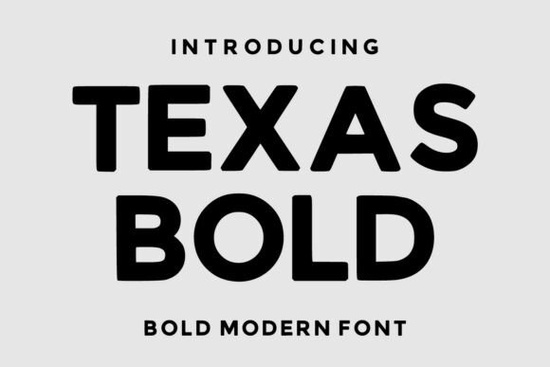
Designers, crafters, and small business owners often look for fonts that can bring their creative visions to life without compromising on style or functionality. Texas Bold Font is one such typeface that stands out for its strong, modern aesthetic and versatility across a range of design projects. Whether you're working on logos, branding, or social media graphics, this font offers the confidence and clarity needed to make your work stand out.
Designed with clean geometric shapes and bold letterforms, Texas Bold Font delivers excellent readability while maintaining a sleek and professional appearance. Its minimalist yet powerful style makes it suitable for both corporate and creative projects that require a modern and sophisticated look. The font’s strong presence ensures that it commands attention without being overwhelming, making it ideal for headlines, banners, and other visual elements where impact matters most.
If you're looking for a font that can adapt to different design needs, Texas Bold Font is a reliable choice. It works well in a variety of formats, from print materials like posters and packaging to digital platforms such as website headers and social media posts. Its versatility means it can be used in everything from advertising campaigns to apparel design, offering a consistent and polished look across all applications.
Why Texas Bold Font Works for Different Projects
One of the key strengths of Texas Bold Font is its ability to fit into a wide range of design contexts. For example, when creating a logo, the font’s bold and confident style helps establish a strong brand identity. In corporate settings, it provides a clean and professional feel that aligns with modern design trends. For more creative projects, the font’s geometric structure adds a contemporary edge that can elevate any visual composition.
For those working on marketing materials, Texas Bold Font is an excellent option for eye-catching headlines and call-to-action elements. Its clear and readable structure ensures that messages are communicated effectively, even at smaller sizes. This makes it particularly useful for flyers, brochures, and other printed materials where legibility is essential.
How to Use Texas Bold Font Effectively
To get the most out of Texas Bold Font, consider the following tips. First, use it for headings and titles where it can shine without competing with other text. Avoid using it for long paragraphs, as its bold weight may reduce readability in larger blocks of text. Instead, pair it with a simpler sans-serif font for body copy to create a balanced and visually appealing layout.
Another effective approach is to experiment with different color combinations. Since the font has a strong visual presence, using it in contrasting colors can help it stand out even more. This is especially useful for digital designs where color plays a key role in attracting attention.
Best Practices for Integrating Texas Bold Font
When integrating Texas Bold Font into your workflow, start by testing it in different sizes and contexts. This will help you understand how it performs in various design scenarios. You can also look at examples of how other designers have used it to gain inspiration for your own projects.
Consider the overall tone of your design when choosing to use Texas Bold Font. Its bold and confident style is best suited for projects that aim to convey strength, professionalism, or modernity. If you’re designing something more casual or playful, you may want to opt for a different font that better matches the intended mood.
Whether you're a designer, a small business owner, or a creative hobbyist, Texas Bold Font offers a powerful and versatile tool for enhancing your visual work. Its strong, modern design makes it an excellent choice for a wide range of applications, and its clean, readable structure ensures that it remains effective in both digital and print formats.
- Use Texas Bold Font for headlines and titles to create visual impact.
- Pair it with a simpler font for body text to maintain readability.
- Experiment with color to highlight the font’s bold presence.